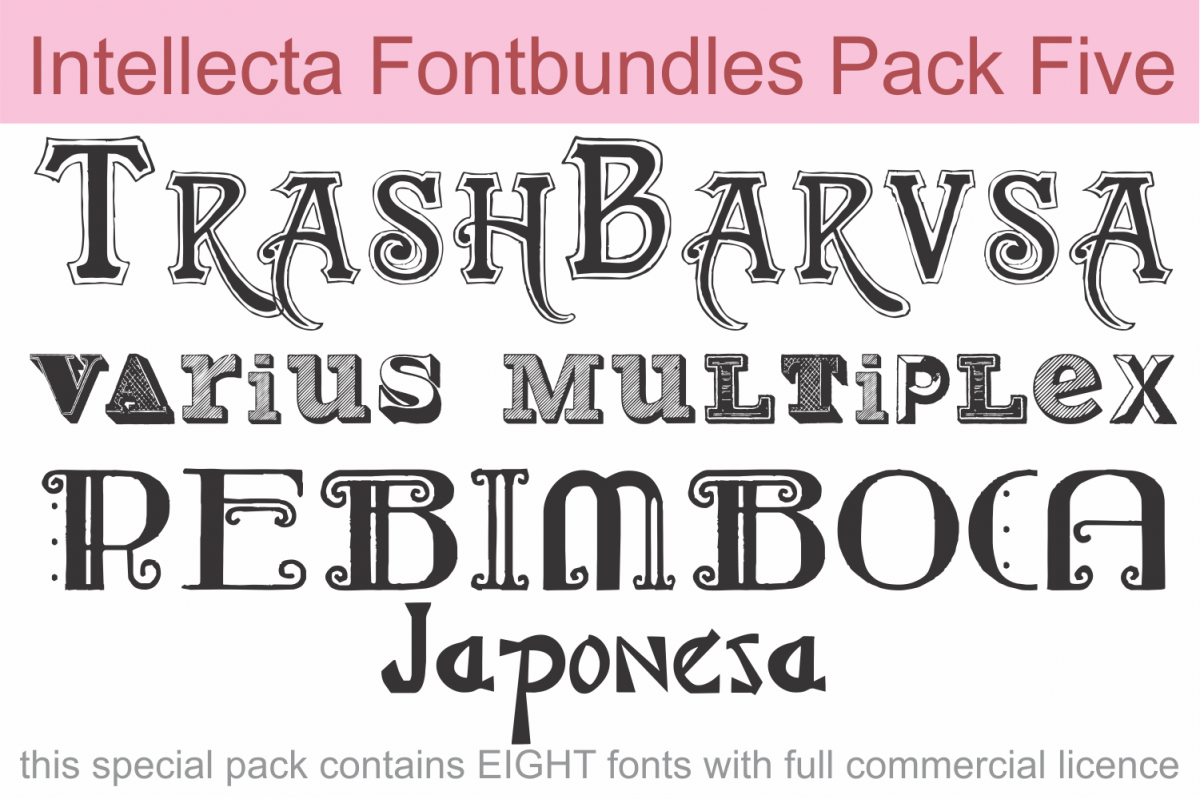
Intellecta Fontbundles Pack Five
Japonesa
Rebimboca
TrashBarusa
Varius Multiplex Personal Edition
OrnamentaMonumenta
Floreale Two
Azalleia Ornaments
Neoclassic Fleurons, Ornamenta Monumenta, Azalleia Ornaments, Floreale Two (ornaments fonts)
TrashBarusa, a vintage font
Varius Multiplex and Rebimboca, display unusual fonts
plus Japonesa, a japanese emulation design